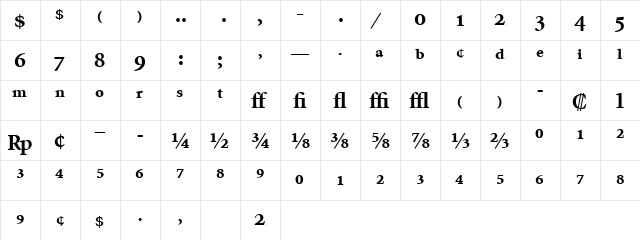
MinionExp-Bold Regular Font Preview
MinionExp-Bold Regular
MinionExp-Bold Regular Font Details
Design Context for MinionExp-Bold Typeface
MinionExp-Bold offers clean, dependable letterforms without strong stylistic allegiance, making it a practical choice for designers who need flexibility. The heavy weight commands attention and anchors typographic hierarchies.